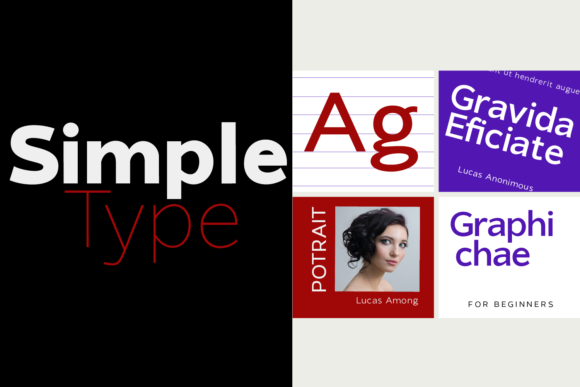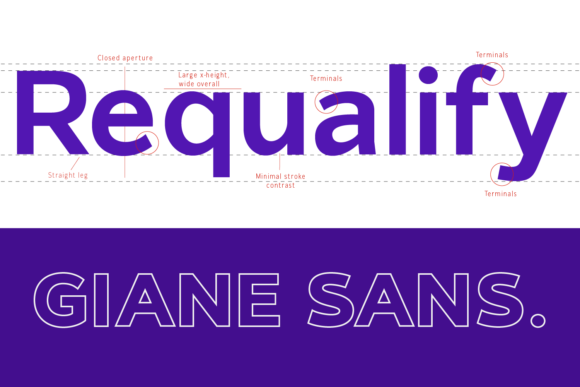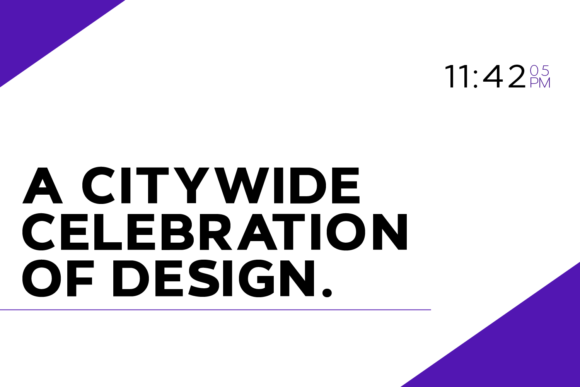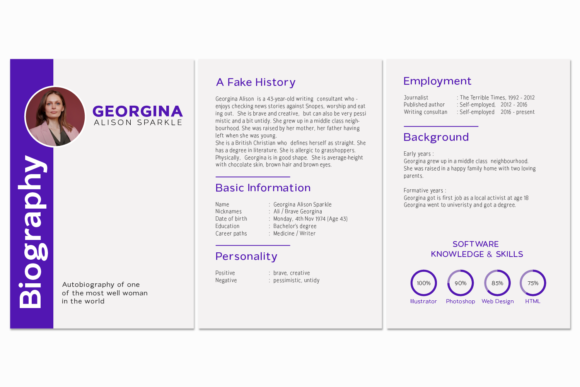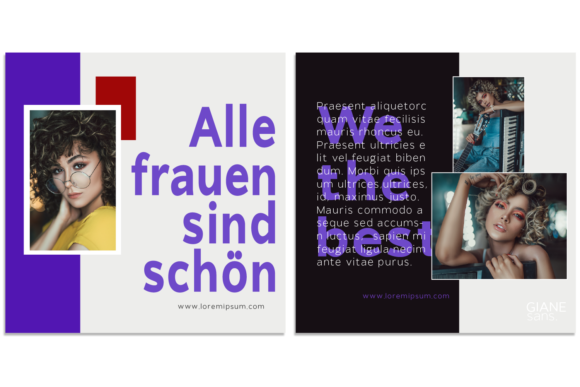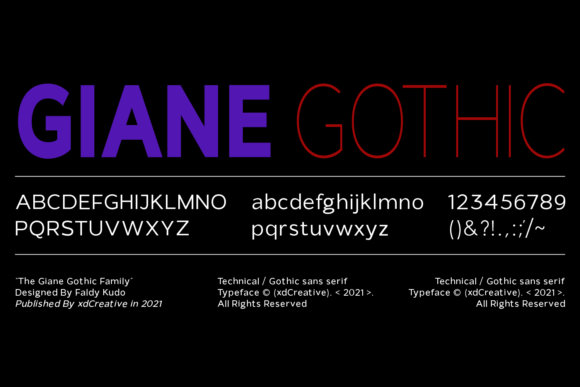
Introduction to Giane Gothic Sans Font
Giane Gothic Sans is a casual sans serif font.
Simple and easy to use, this font will be very beautiful if you mix it with your various craft designs .
Key Features of Giane Gothic Sans Font
Why Choose Giane Gothic Sans Font?
Giane Gothic Sans Font offers exceptional quality and versatility, making it a valuable addition to your design toolkit. Whether you’re creating for personal projects or commercial use, Giane Gothic Sans Font delivers professional results.